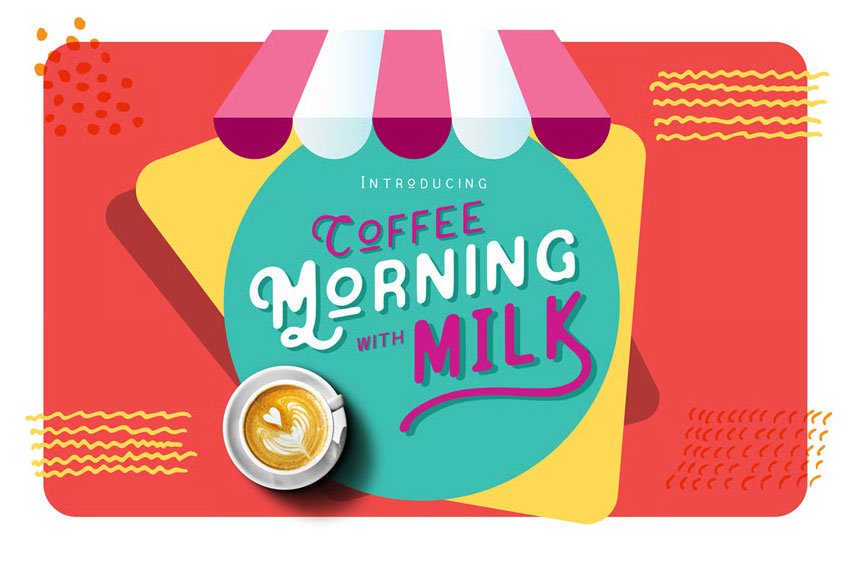
Coffee Morning with Milk Font Handmade sans serif with rugged and imperfect edges shapes. Rounded edges bring a vintage look on this typeface and alternate character make it more stylish. Applicable for branding, logos, quotes, t-shirt, label, poster, badges, etc.
Features: All Caps, small caps, numeral, punctuation, alternate characters and ligatures. Support webfont (otf, ttf, eot, woff).